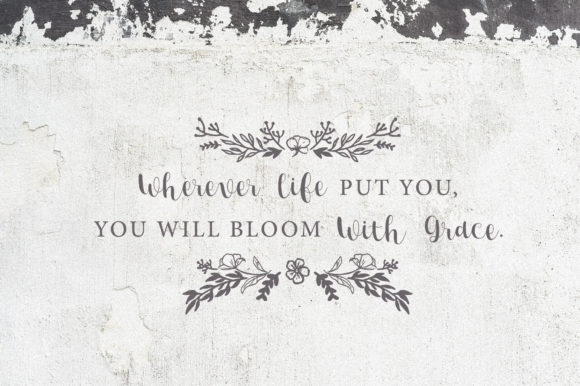
Lucky Walter Font: A Free-Floating and Smooth Script for Your Design Needs
The world of typography is vast and diverse, with numerous font styles to choose from, each with its unique character and charm. Among these, the Lucky Walter Font stands out for its free-floating and smooth script, offering an incredibly organic approach to lettering. In this article, we’ll delve into the details of the Lucky Walter Font, exploring its features, uses, and the inspiration behind its sweet look.
What Makes Lucky Walter Font Special?
Lucky Walter Font is a script typeface that boasts a fluid, cursive style, reminiscent of handwritten lettering. Its smooth, connected letters create a sense of movement and flow, making it perfect for designs that require a touch of elegance and sophistication. The font’s organic approach to lettering gives it a unique, human feel that sets it apart from more traditional, uniform typefaces.
- Free-Floating Design: The Lucky Walter Font features a free-floating design, which means that the letters are not rigidly structured, but instead, flow smoothly into one another. This creates a sense of fluidity and movement, adding a dynamic touch to your designs.
- Smooth Script: The font’s smooth script style is characterized by its rounded edges and flowing connections. This gives the Lucky Walter Font a soft, approachable feel that’s perfect for designs that require a touch of warmth and personality.
- Organic Approach: The Lucky Walter Font’s organic approach to lettering is what sets it apart from other script typefaces. Its letters are designed to mimic the natural flow of handwriting, creating a sense of authenticity and human touch.
Getting Inspired by Lucky Walter Font’s Sweet Look
The Lucky Walter Font’s sweet look is sure to inspire your designs, whether you’re working on a branding project, creating a website, or designing a marketing campaign. Here are a few ways to get inspired by this beautiful font:
- Use it for Branding: The Lucky Walter Font is perfect for branding projects that require a touch of elegance and sophistication. Use it for logos, business cards, or packaging designs to create a lasting impression.
- Create a Website: The font’s smooth script style and organic approach to lettering make it perfect for website designs that require a touch of warmth and personality. Use it for headings, titles, or even body text to create a unique and engaging user experience.
- Design Marketing Materials: The Lucky Walter Font is also great for designing marketing materials, such as brochures, flyers, or posters. Its fluid, cursive style and smooth connections create a sense of movement and flow, drawing the viewer’s attention to your message.
The Many Uses of Lucky Walter Font
The Lucky Walter Font is a versatile typeface that can be used in a variety of design projects. Here are some of the many uses of this beautiful font:
- Logos and Branding: The Lucky Walter Font is perfect for creating logos, business cards, and other branding materials that require a touch of elegance and sophistication.
- Web Design: The font’s smooth script style and organic approach to lettering make it perfect for website designs that require a touch of warmth and personality.
- Marketing Materials: The Lucky Walter Font is great for designing marketing materials, such as brochures, flyers, or posters, that require a touch of creativity and flair.
- Packaging Design: The font’s fluid, cursive style and smooth connections create a sense of movement and flow, making it perfect for packaging designs that require a touch of elegance and sophistication.
Tips and Tricks for Using Lucky Walter Font
Here are some tips and tricks for using the Lucky Walter Font in your designs:
- Pair it with Other Fonts: The Lucky Walter Font pairs well with other fonts, such as sans-serif typefaces or serif fonts. Experiment with different font combinations to create a unique and engaging design.
- Use it for Headings: The Lucky Walter Font is perfect for headings, titles, and other display text. Use it to create a lasting impression and draw the viewer’s attention to your message.
- Experiment with Colors: The Lucky Walter Font looks great in a variety of colors, from bold and bright to soft and pastel. Experiment with different colors to find the perfect combination for your design.
In conclusion, the Lucky Walter Font is a beautiful, free-floating and smooth script typeface that offers an incredibly organic approach to lettering. Its sweet look is sure to inspire your designs, whether you’re working on a branding project, creating a website, or designing a marketing campaign. With its many uses, versatility, and tips and tricks for using the font, the Lucky Walter Font is a great addition to any designer’s toolkit.